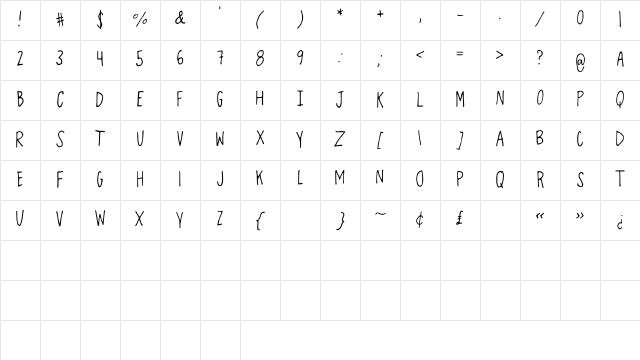
OverthEMoOn Medium Free Font
OverthEMoOn Medium
Design Context for OverthEMoOn
OverthEMoOn is a composed and adaptable typeface that performs quietly and consistently across a wide range of design contexts.
Pro Tip: Use OverthEMoOn in both headline and body roles to test its range before committing to a single application.